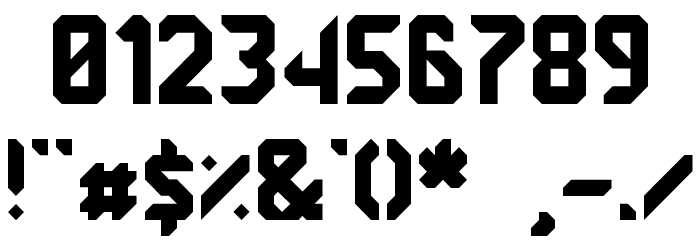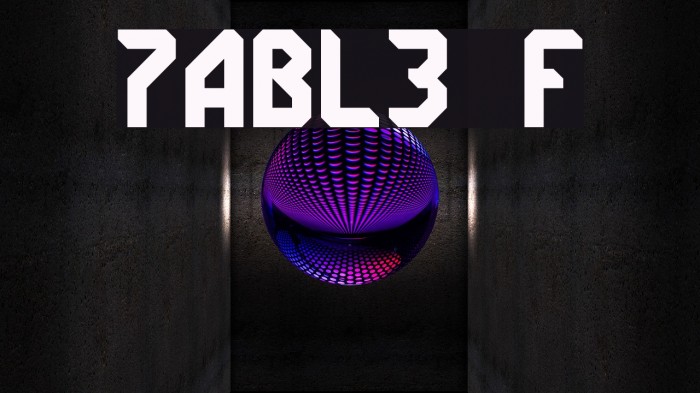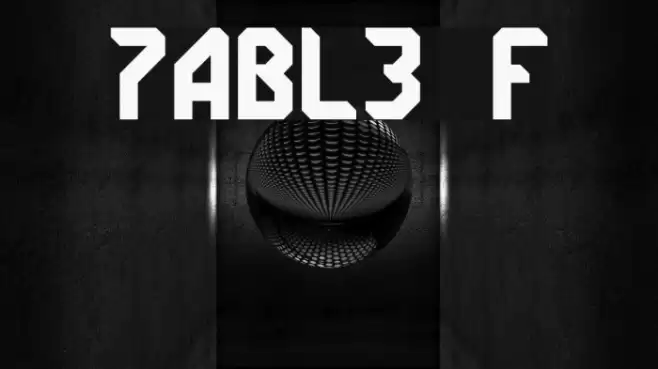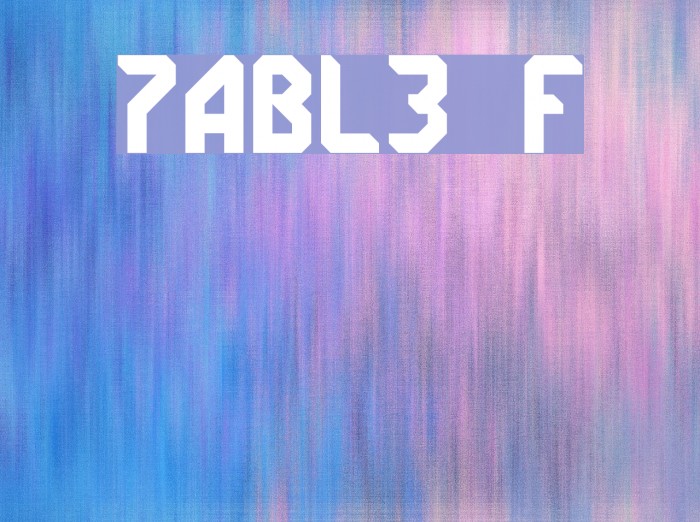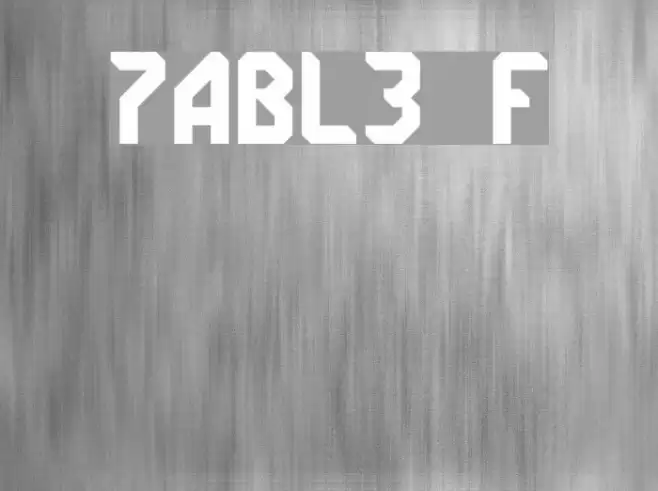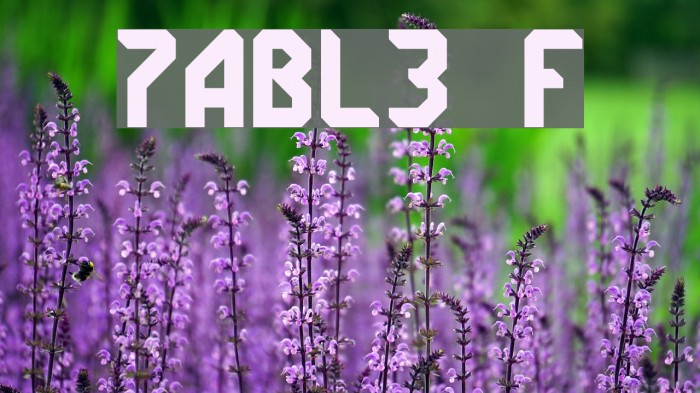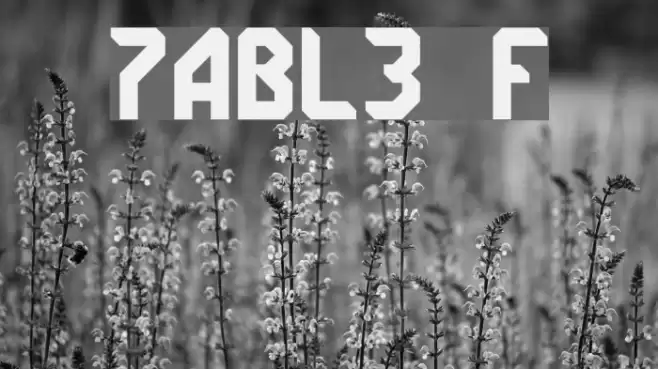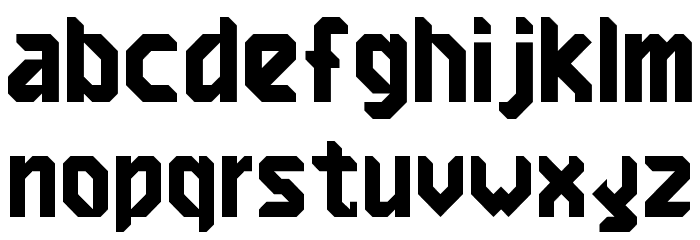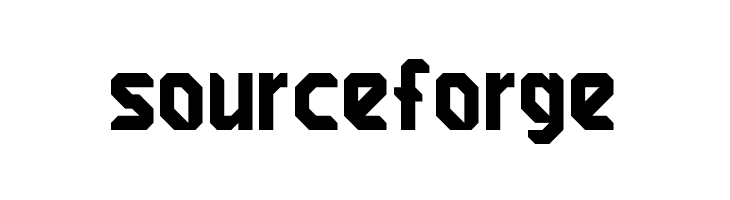
7ABL3 Font
7ABL3 Description
This font features a bold, geometric design with angular edges and a strong presence. The characters are constructed with sharp, straight lines and corners, giving it a futuristic and industrial feel. The uppercase and lowercase letters maintain a consistent style, with a uniform height and width that enhances readability. Numbers and special characters follow the same design principles, ensuring a cohesive look across all elements. The font's boldness makes it stand out, while the geometric shapes add a modern twist, making it suitable for attention-grabbing headlines and logos.